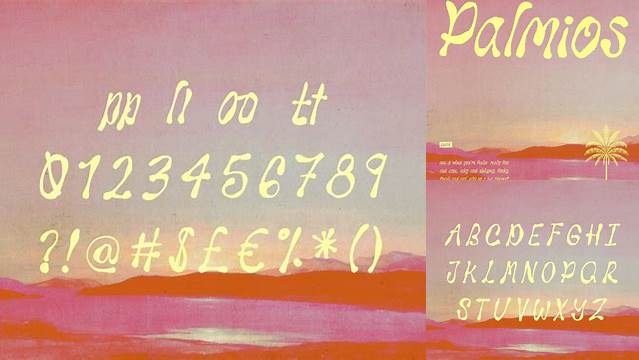
Palmios Hand Drawn Font: Free Download & Creative Uses
Discover the Charm of Palmios Hand Drawn Font Free
Hey guys, let's dive into the wonderful world of typography, and specifically, let's talk about the Palmios hand drawn font free download. You know, those fonts that just scream personality and give your designs that extra special touch? Palmios is one of those gems. It's a hand-drawn typeface that brings a unique blend of casual warmth and artistic flair to any project. When you're looking for a font that breaks away from the rigid, geometric structures of more traditional fonts, Palmios really shines. Its imperfect, organic strokes give it a handcrafted feel, making it perfect for projects where you want to convey authenticity, approachability, and a touch of artistic soul. We're talking about everything from invitations and greeting cards to social media graphics, blog posts, and even small business branding. The beauty of a free font like Palmios is that it lowers the barrier to entry for creative expression. You don't need to be a professional designer with a huge budget to access high-quality, characterful fonts. This font allows you to experiment and explore different visual styles without any financial commitment. Its versatility means you can use it for headings to grab attention, or for body text to create a friendly, inviting read. The key is understanding how its unique characteristics can complement your message and overall design aesthetic. So, if you're on the hunt for a font that's both stylish and functional, and best of all, available for free, Palmios is definitely worth checking out. Its availability as a free download makes it an accessible tool for students, hobbyists, and professional designers alike, democratizing creativity one letter at a time. The organic nature of its design means it pairs wonderfully with more structured fonts, creating a dynamic contrast that can make your designs pop. Think of it as adding a personal, handwritten note to an otherwise formal document – it instantly makes it more relatable and engaging. Plus, with the rise of personalized content and the desire for brands to appear more human, a font like Palmios is a strategic choice for establishing that connection.
Unpacking the Unique Features of Palmios Hand Drawn Font
When we talk about the Palmios hand drawn font free download, it's not just about getting a font; it's about acquiring a set of unique characteristics that set it apart. What makes Palmios so special, you ask? Well, it’s all in the details, guys. First off, the hand-drawn aspect is evident in every single letter. You'll notice subtle variations in stroke weight and a slight, natural wobble that you just don't get with digital, computer-generated fonts. This imperfection is its superpower, lending an authentic, organic, and approachable feel. Unlike sterile, perfectly aligned fonts, Palmios has a soul. It’s like the difference between a factory-made product and something lovingly crafted by hand. These irregularities make the font incredibly expressive. It can convey a sense of playfulness, warmth, and creativity all at once. Imagine using it for a wedding invitation – it instantly suggests a personal, heartfelt celebration. Or for a bakery's logo – it implies delicious, homemade goods. The key features also include its legibility; despite its artistic style, Palmios is designed to be readable, even at smaller sizes. This is crucial, as a font that looks great but can't be read is ultimately useless. Designers often struggle to find fonts that balance unique personality with practical usability, and Palmios strikes that balance beautifully. Another aspect is the range of characters it offers. Typically, a good font family includes uppercase and lowercase letters, numbers, and punctuation marks. Many free fonts might be limited, but Palmios, in its free iteration, often provides a solid set of characters to get you started on most common design projects. You might also find variations in glyphs or stylistic alternates that further enhance its expressive potential, allowing for even more customization and uniqueness in your text. The overall aesthetic leans towards a friendly, slightly whimsical vibe without being overly childish, making it suitable for a broad audience. It’s this combination of handcrafted charm, readability, and a touch of artistic flair that makes the Palmios hand drawn font free download a fantastic asset for your design toolkit. It’s a font that invites interaction and adds a human touch to digital creations.
Why Palmios Hand Drawn Font is Perfect for Your Next Project
So, you've got this awesome Palmios hand drawn font free download sitting in your digital toolbox. Now, the big question is: why is it the perfect choice for your next creative endeavor, guys? Let's break it down. First and foremost, authenticity. In a world saturated with digital perfection, a hand-drawn font like Palmios offers a refreshing sense of realness. It speaks volumes about the care and personality you're putting into your project. Whether you're designing a logo for your artisanal coffee shop, crafting a personalized wedding invitation, or creating eye-catching social media posts, Palmios adds that genuine, human touch that resonates with audiences. It signals that you're not just another generic brand; you're unique, you're creative, and you care about the details. Secondly, versatility. Don't let the 'hand-drawn' label fool you into thinking it's only for crafty or whimsical designs. Palmios, with its clean lines and balanced proportions (despite its organic nature), can adapt surprisingly well to various styles. Use it for bold headlines that demand attention, or pair it with a more minimalist font for body text to create an engaging contrast. It works wonders for branding, packaging, website headers, and even print materials like flyers and posters. The key is in how you pair it and the context you place it in. Its friendly yet sophisticated vibe makes it suitable for everything from children's books to boutique fashion brands, depending on the overall design treatment. Thirdly, accessibility. The fact that you can get Palmios as a Palmios hand drawn font free download is a massive advantage. It means that budget constraints don't have to limit your creativity. Students, startups, and independent artists can access a high-quality, character-rich font without any financial burden. This democratizes design, allowing everyone to create visually appealing content. It’s a powerful tool that levels the playing field, empowering you to produce professional-looking results. Finally, memorability. Fonts with strong personalities, like Palmios, tend to stick in people's minds. When your text has a unique character, it helps your message stand out and be remembered. In a crowded digital space, this distinctiveness is invaluable. So, if you're aiming for a design that feels personal, looks professional, is budget-friendly, and leaves a lasting impression, the Palmios hand drawn font is definitely a top contender. It’s more than just letters; it’s a statement about your creative vision.
Exploring Creative Applications for Palmios Hand Drawn Font Free
Alright, let's get our creative juices flowing, guys! Now that you've got the Palmios hand drawn font free download, what kind of awesome stuff can you actually do with it? The possibilities are pretty much endless, but let's highlight some killer applications. First up, invitations and stationery. Think wedding invitations, birthday cards, baby shower invites, or even just personal thank-you notes. The inherent warmth and personal touch of Palmios make any announcement feel extra special and heartfelt. It’s like sending a handwritten note, but with the convenience and consistency of a font. Imagine your wedding guests receiving an invitation set in Palmios – it instantly sets a romantic, personal, and welcoming tone for your big day. Next, branding for small businesses and creatives. If you're a freelancer, an artist, a baker, a florist, or run any kind of small, personal business, Palmios can be your secret weapon. It’s fantastic for logos, business cards, price lists, and packaging. It communicates approachability, creativity, and a hands-on ethos – exactly what customers often look for in smaller, independent ventures. Picture a craft brewery using Palmios for its taproom signage and beer labels; it immediately suggests quality, local craftsmanship, and a friendly vibe. Then there are social media graphics and blog content. In the fast-paced world of online content, you need visuals that grab attention. Palmios is perfect for creating engaging quote graphics, eye-catching post titles, or even adding a unique flourish to your blog’s header or byline. Its personality shines through, making your feed or blog more distinct and memorable. It helps you stand out from the sea of generic templates. Also, consider children's books and educational materials. The friendly, slightly whimsical nature of Palmios makes it super suitable for projects aimed at younger audiences. It can make learning materials more inviting and storybooks more engaging and fun to read. It adds a playful element without being too distracting. Lastly, personal projects and DIY crafts. Got a scrapbook you're working on? A custom t-shirt design? A unique piece of home decor you want to paint? Palmios adds that perfect custom touch. It allows you to inject your personality into physical objects and digital creations alike, making them truly one-of-a-kind. The beauty of the Palmios hand drawn font free download is its sheer adaptability. Play around with it, mix and match it with other fonts, and see where your imagination takes you. It's a tool that empowers you to make anything you create feel more personal and unique.
Tips for Maximizing the Use of Palmios Font Free
So, you've got the Palmios font free download, and you're ready to rock. But how can you make sure you're using this awesome hand-drawn typeface to its fullest potential, guys? Let's dive into some pro tips. First off, pair it wisely. Palmios has a distinct personality, so it works best when paired with a complementary font. Think clean sans-serifs or classic serifs that provide a bit of contrast without clashing. For example, use Palmios for your main heading or a call-to-action button, and then use a simple, highly legible font like Open Sans or Lato for the body text. This creates visual hierarchy and ensures readability while still showcasing Palmios's unique charm. Don't be afraid to experiment with different pairings to see what feels right for your project's vibe. Secondly, consider the context. Where are you using this font? For a cozy cafe's menu, Palmios might be perfect all over. But for a corporate annual report? Probably not. Tailor its use to the project's tone. It excels in settings that call for warmth, personality, and a human touch – think event invitations, creative branding, personal blogs, and artisanal product packaging. Use it strategically for impact. Thirdly, play with size and weight. Most fonts come with different weights (like regular, bold, light), and Palmios might offer some variations too. Even if it's just one style, playing with the font size can dramatically change its feel. Make it large and bold for a statement headline, or use it at a smaller, more subtle size for accents. The goal is to use its visual presence effectively without overwhelming the design. Fourth, don't overuse it. While Palmios is fantastic, too much of a good thing can be, well, too much. Reserve it for key elements where you want to draw attention or convey specific emotions. Overusing a highly stylized font can make your design look cluttered or unprofessional. Use it as a highlight, not the entire show. Fifth, explore its character set. If Palmios comes with any stylistic alternates, ligatures, or swashes, make sure you explore them! These extras can add even more flair and uniqueness to your text, making your design truly stand out. Check your design software's glyph panel or character map. Finally, embrace the imperfections. Remember, it's hand-drawn! Those little quirks are what give it character. Don't try to make it look perfectly uniform if it's not designed that way. Lean into the organic, imperfect beauty of the Palmios font free style. By following these tips, you can ensure that this beautiful font elevates your designs, making them more engaging, memorable, and uniquely yours. It's all about smart application and understanding its strengths.
The Allure of Hand-Drawn Typography: A Look at Palmios Style
Hey design enthusiasts, let's chat about the magnetic pull of hand-drawn typography, and how the Palmios hand drawn font free download perfectly embodies this allure, guys. In a digital landscape often dominated by crisp, geometric perfection, there's something incredibly captivating about letters that look like they've been sketched, inked, or painted by human hands. Palmios falls squarely into this category, offering a delightful departure from the conventional. What's the big deal? Well, it boils down to personality and authenticity. Hand-drawn fonts carry an inherent warmth and individuality. They often feature subtle imperfections – slight variations in stroke width, a gentle wobble, or organic curves – that make each character feel unique and alive. This is precisely what Palmios delivers. It doesn't feel manufactured; it feels crafted. This handcrafted feel is incredibly powerful in design. It immediately signals a human touch, fostering a sense of connection and approachability. Think about a handwritten note versus a typed email; the handwritten note feels more personal, more significant. Palmios brings that same emotional resonance to digital and print designs. Furthermore, hand-drawn fonts convey creativity and artistic flair. They suggest that the creator has put thought, care, and a unique vision into the project. For brands, using a font like Palmios can communicate that they are innovative, artistic, or deeply connected to craftsmanship. It helps them stand out from competitors who might be using more generic, mass-produced typefaces. The Palmios hand drawn font free style is particularly appealing because it strikes a wonderful balance. It’s expressive and full of character, yet it often maintains good readability. Designers have worked hard to ensure that despite the organic strokes, the letters are still clear and easy to decipher, making it suitable for more than just decorative purposes. It bridges the gap between artistic expression and functional communication. Whether it’s used for a logo that needs to feel artisanal, a website that aims for a friendly user experience, or a print piece that requires a unique aesthetic, Palmios offers a way to infuse any project with a distinctive, human-centric appeal. It’s a reminder that in design, sometimes the most effective communication comes from the most personal touch.
Why Designers Love Free Hand-Drawn Fonts like Palmios
Let's get real for a second, guys. As designers, we're always on the hunt for tools that can elevate our work, make our lives easier, and – let's be honest – not break the bank. That's where free hand-drawn fonts like Palmios hand drawn font free become absolute treasures. There are several reasons why designers develop a soft spot for these kinds of typefaces. Firstly, unique aesthetic. Hand-drawn fonts inherently offer a visual style that's hard to replicate with standard fonts. They bring character, texture, and an organic feel that can instantly make a design more interesting and less predictable. Palmios, with its specific style, provides a ready-made aesthetic solution that adds personality without requiring hours of custom lettering. Secondly, cost-effectiveness. This is a big one! High-quality fonts, especially those with extensive character sets and multiple weights, can be incredibly expensive. Free fonts democratize design, allowing designers, especially those starting out or working on tight budgets, to access premium-looking assets. The Palmios hand drawn font free download means designers can experiment with different looks and add unique touches to client projects or personal work without a significant financial outlay. Thirdly, versatility in application. Contrary to what some might think, hand-drawn fonts aren't just for